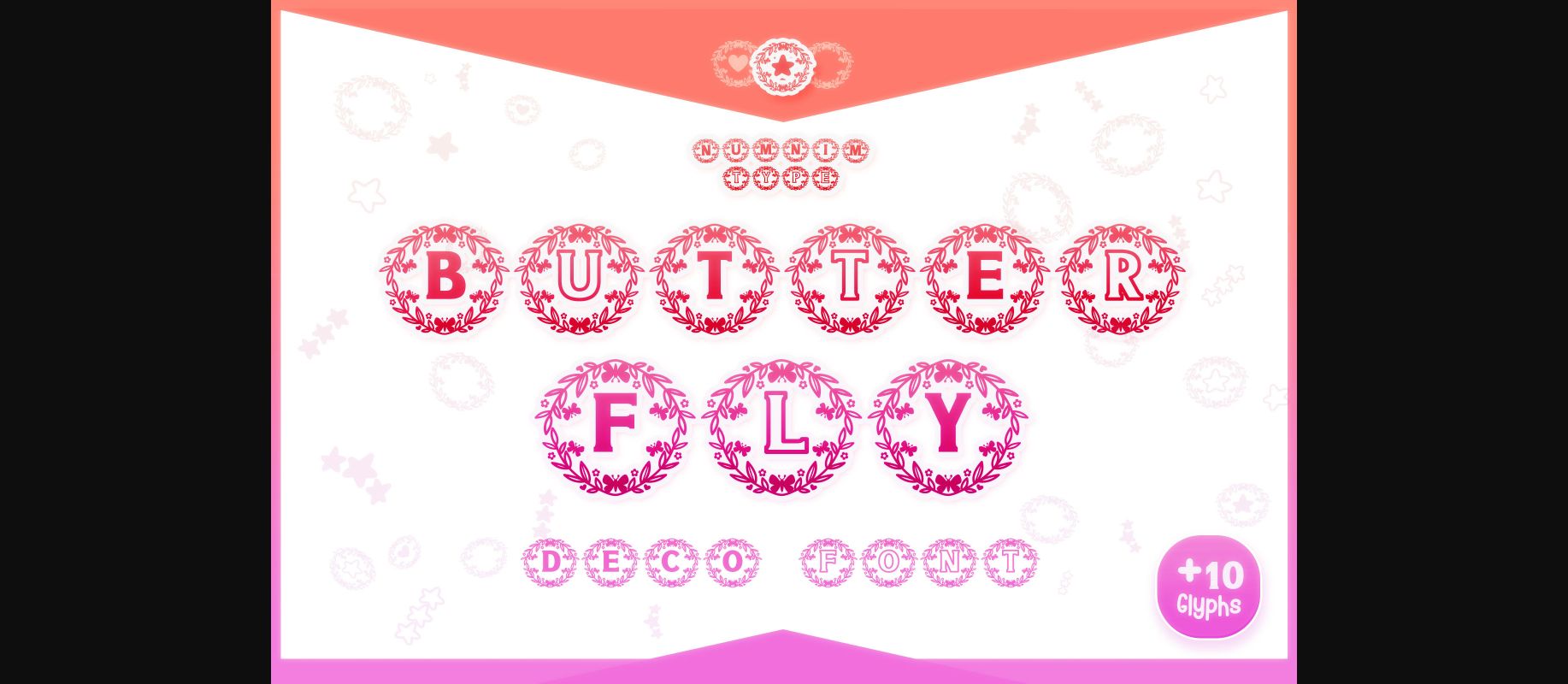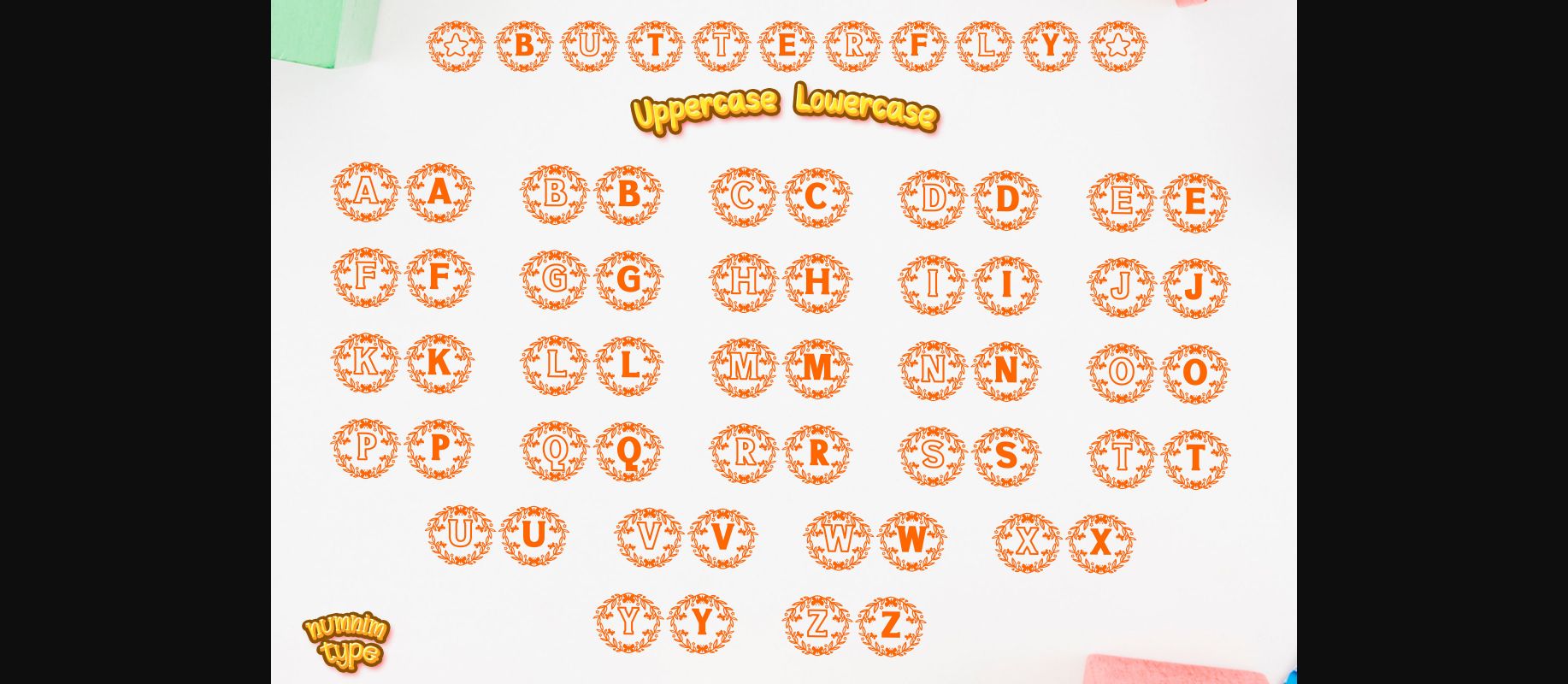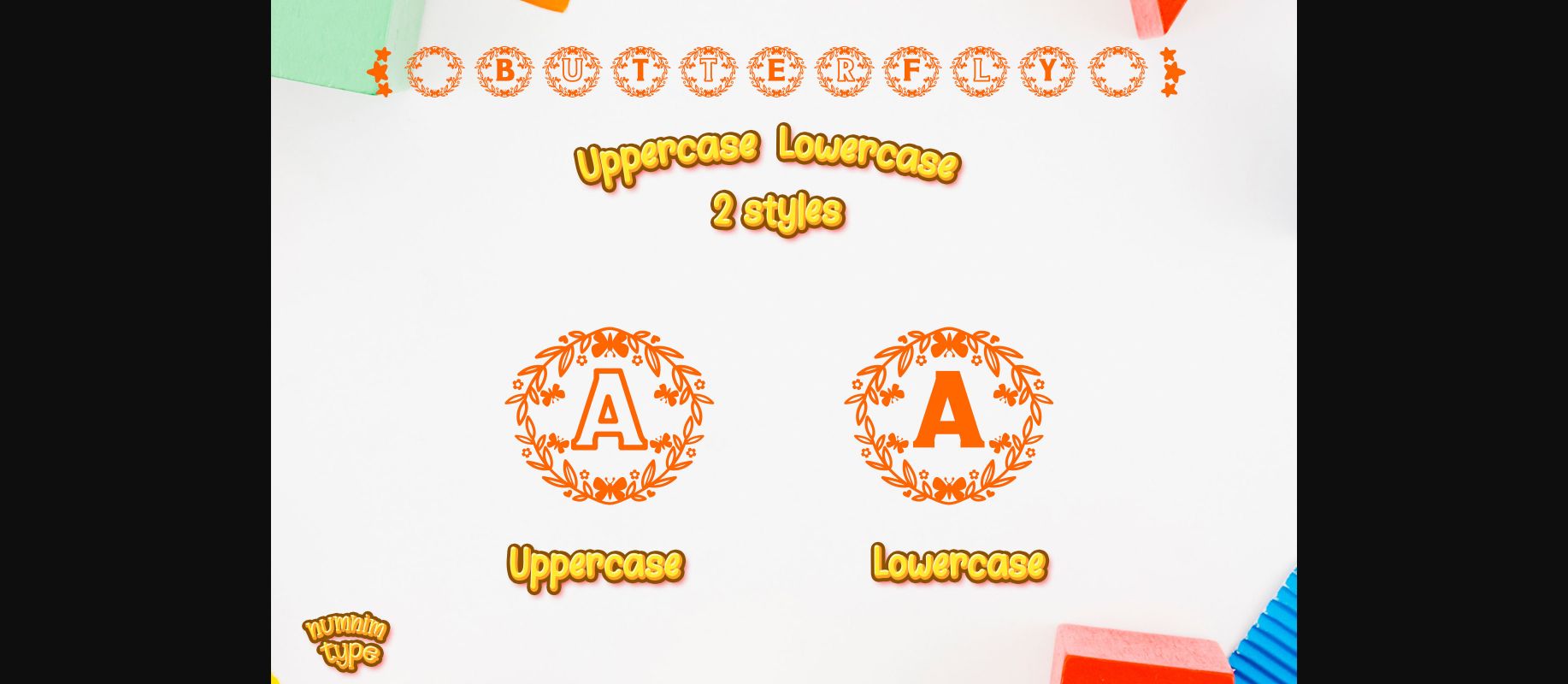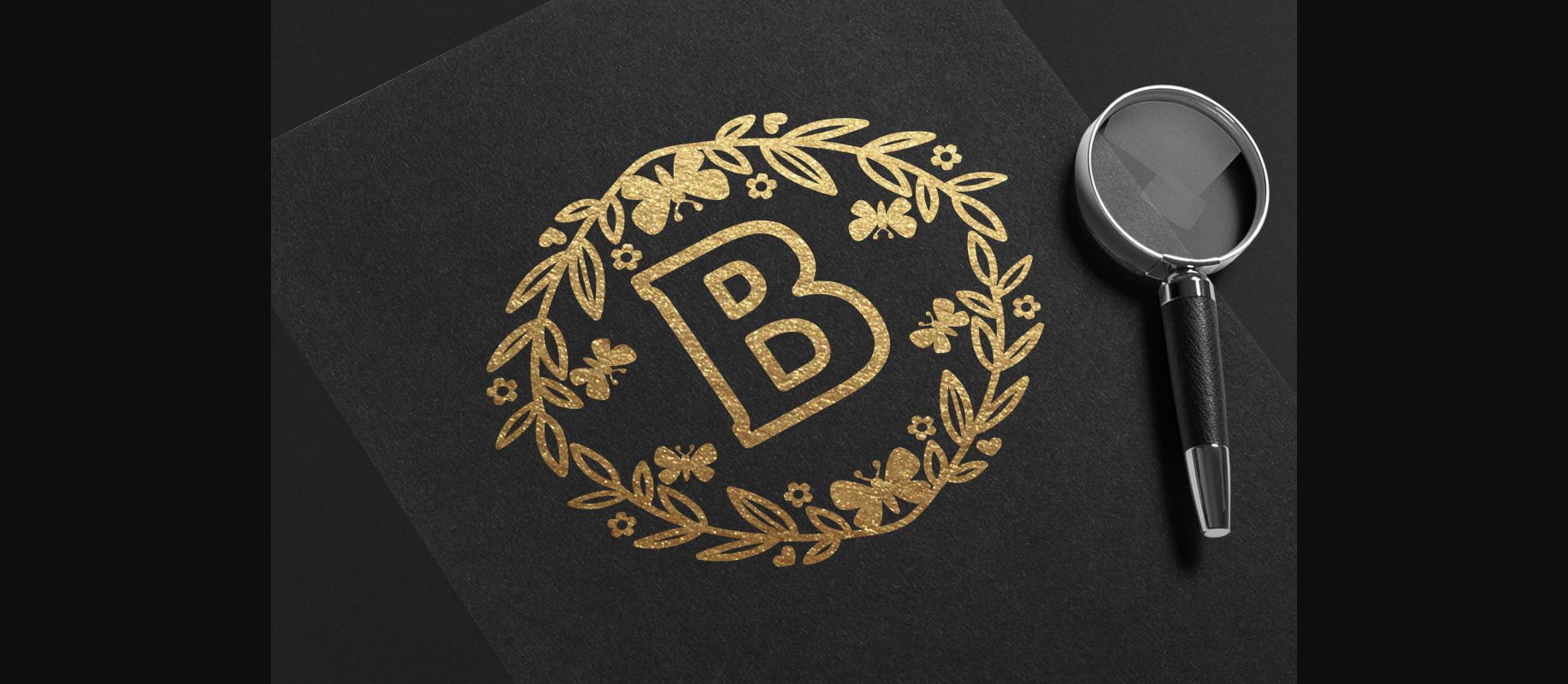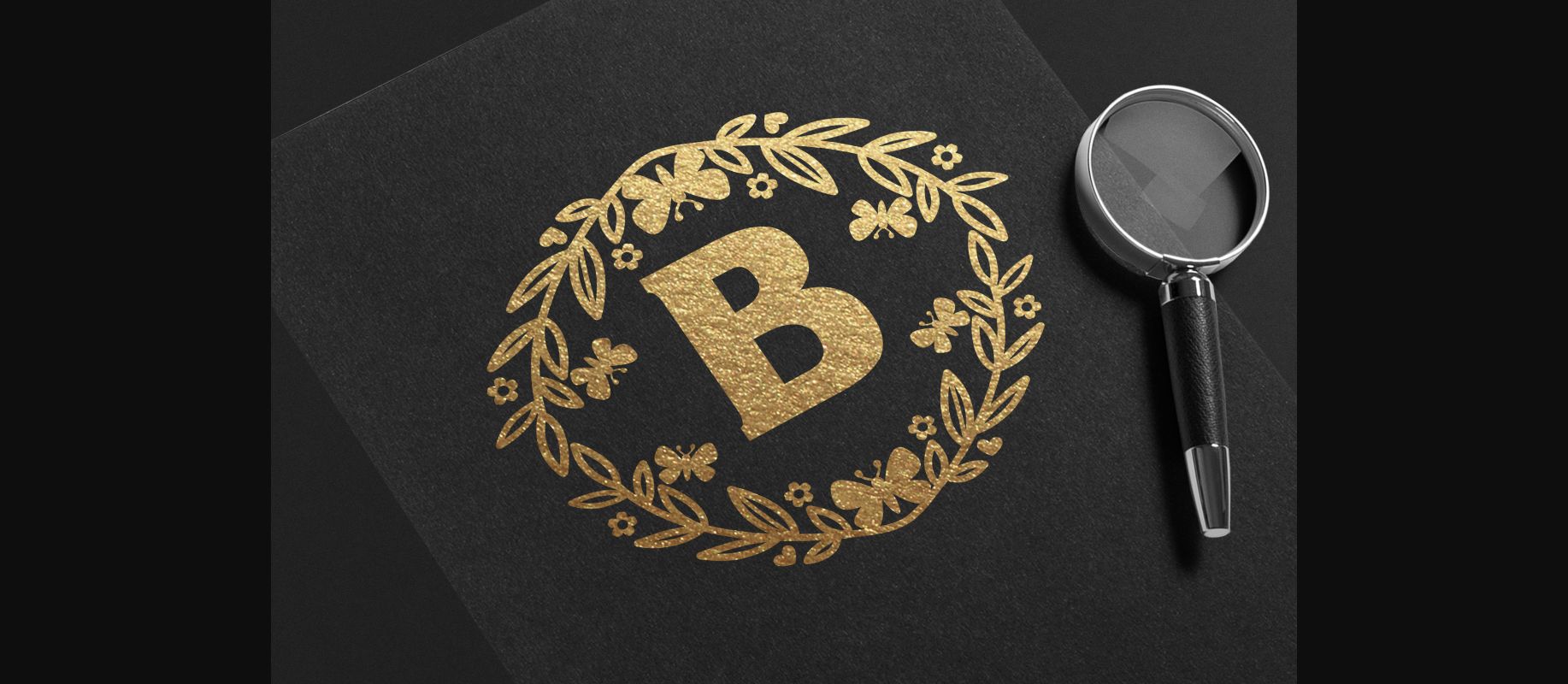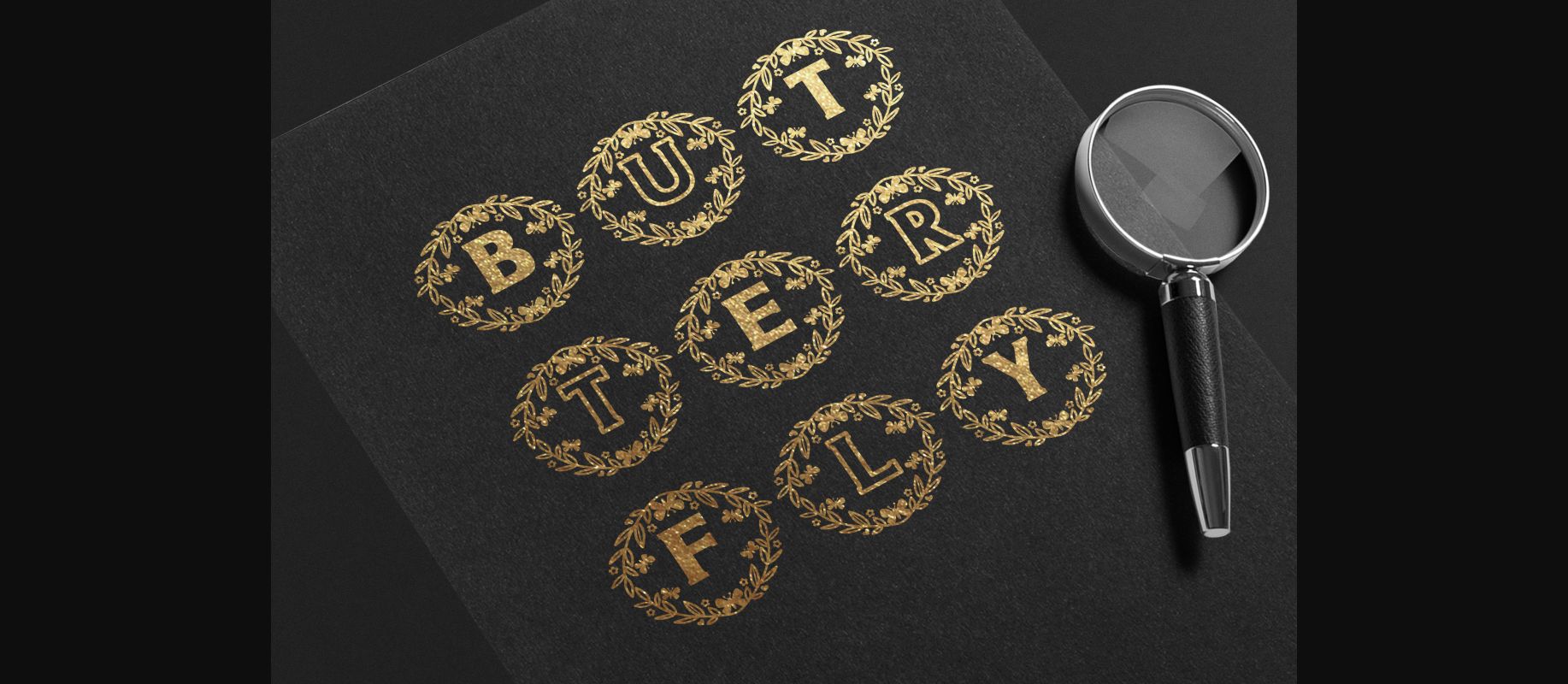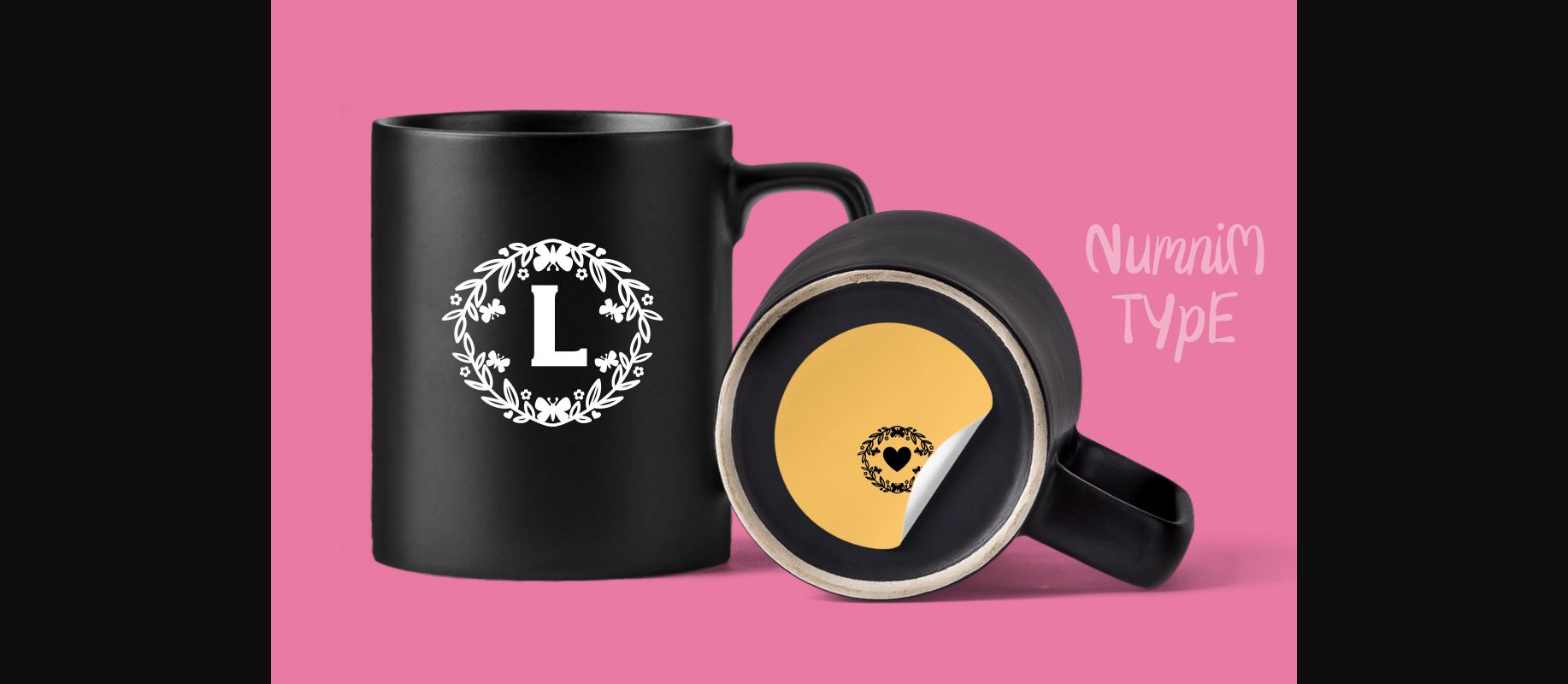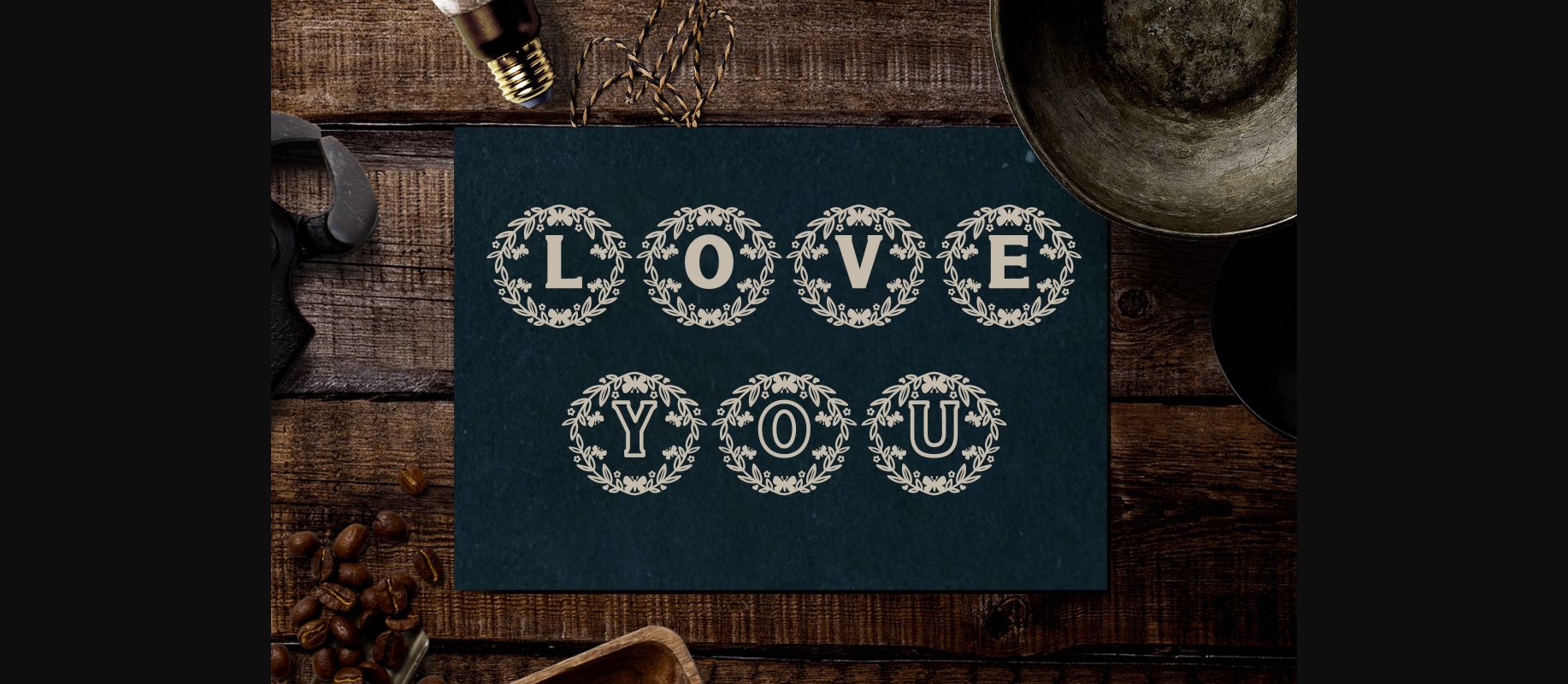
HomeDecorative FontsButterfly Font Decorative Fonts Butterfly Font FacebookXPinterestWhatsApp 1 of 11 ... Butterfly Font Poster 2... Butterfly Font Poster 3... Butterfly Font Poster 4... Butterfly Font Poster 5... Butterfly Font Poster 6... Butterfly Font Poster 7... Butterfly Font Poster 8... Butterfly Font Poster 9... Butterfly Font Poster 10... Butterfly Font Poster 11... About Butterfly Font Butterfly is a delicate and uniquely designed decorative font. This font is suitable for floral decorations and love-related projects. It is also PUA encoded which means you can access all of the glyphs and swashes with ease! DOWNLOAD NOW People also explored Green Leaf Font Sweet Potato Font Curious Font Washing Font Adynda Font Cutting Font Yamileth Zendaya Font Mezza Extra Light Font Copperplate Deco 330 0 TagsButterfly Font Previous articleOyster CPC FontNext articleEastery Font LEAVE A REPLY Cancel reply Comment: Please enter your comment! Name:* Please enter your name here Email:* You have entered an incorrect email address! Please enter your email address here Website: Save my name, email, and website in this browser for the next time I comment. Personal Use Free Vembazax Rm Personal Use Free Read more about this font Nikoleta Personal Use Free Read more about this font Roustel Personal Use Free Read more about this font Catandra Script Personal Use Free Read more about this font BLOG How to Install and Use Fonts on Windows, macOS, and Web Projects How to Install and Use Fonts on Windows, macOS, and Web Projects Fonts are a crucial part of design and branding. Whether you’re designing a... Best Fonts for T-Shirt Design – Top 2025 Picks Free Fonts Risk: Why Free Fonts Can Be Dangerous for Designers Exploring Font Trends